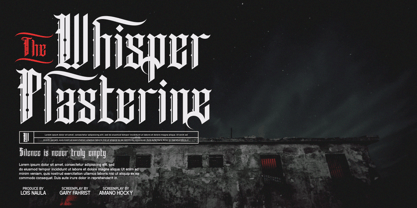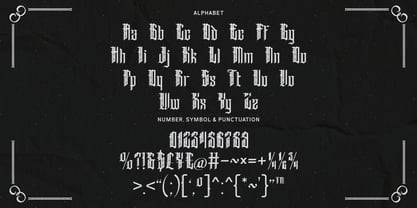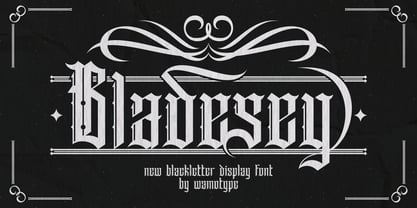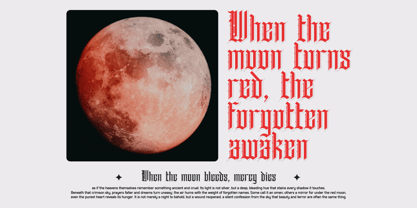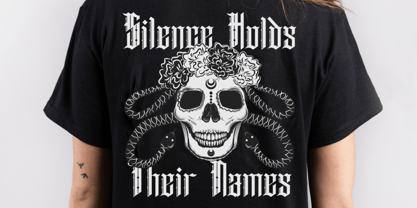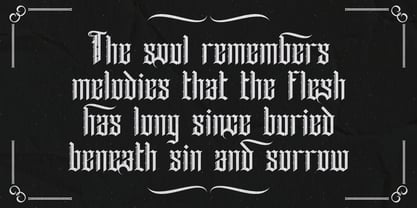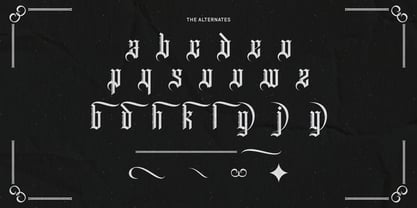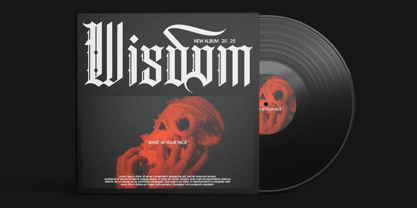
Bladesey
Bladesey is a decorative blackletter display font with upright, narrow letterforms, sharp broken strokes, and high contrast between heavy vertical stems and thin cuts. Its characters carry gothic details such as split stems, pointed terminals, small internal dots, and swash-like extensions on selected letters. The rhythm is dense and formal, giving the typeface a dark, medieval, metal-inspired mood while still keeping single words and short phrases readable at large sizes. Bladesey fits display settings such as album artwork, band logos, horror posters, gothic merchandise, tattoo-style graphics, dark editorial titles, and dramatic packaging where body-text readability is not required.
Hello, I'm Wahyudi Mokoagow, based in Manado, Indonesia. Yeen Studio, founded in 2019, is a foundry that builds tools and types, basically to showcase and promote its typography. we started making fonts as a hobby in 2019, and focused on handwriting, brush, and blackletter look and fonts because we found them more useful and durable. also try to make things easy and smart for the designers. Apart from fonts, I love all forms of creativity; layout design, UI/UX Design, and more.